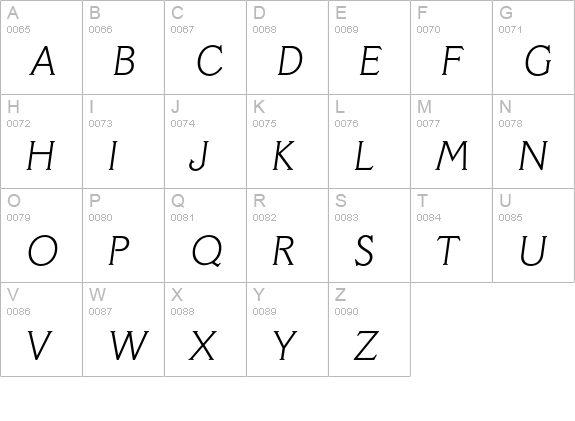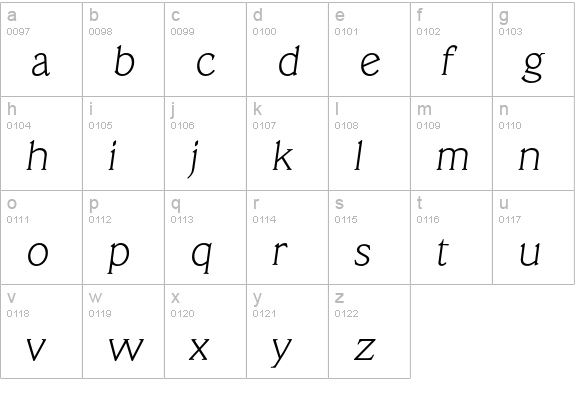
Veracruz-XlightIta font is a captivating and elegant typeface that effortlessly combines modernity and sophistication. With its delicate and slender letterforms, this font exudes a sense of grace and refinement. Perfect for creating a refined and polished look, Veracruz-XlightIta font is ideal for various design projects such as branding, logos, invitations, and packaging. Its clean lines and subtle curves make it versatile enough to complement any style or concept. What sets Veracruz-XlightIta font apart is not only its exquisite design but also its accessibility. It is freely available to download at FontsMarket.com, making it a valuable asset for designers and creatives in need of a high-quality typeface without breaking the bank. Whether you are working on a personal project or a professional endeavor, Veracruz-XlightIta font will elevate your designs to new heights. Its light and airy appearance will bring a touch of sophistication to any composition, adding a sense of elegance and refinement. Embrace the beauty of Veracruz-XlightIta font and let its timeless charm elevate your designs. Download it for free at FontsMarket.com and experience the seamless blend of modernity and grace that this font has to offer.